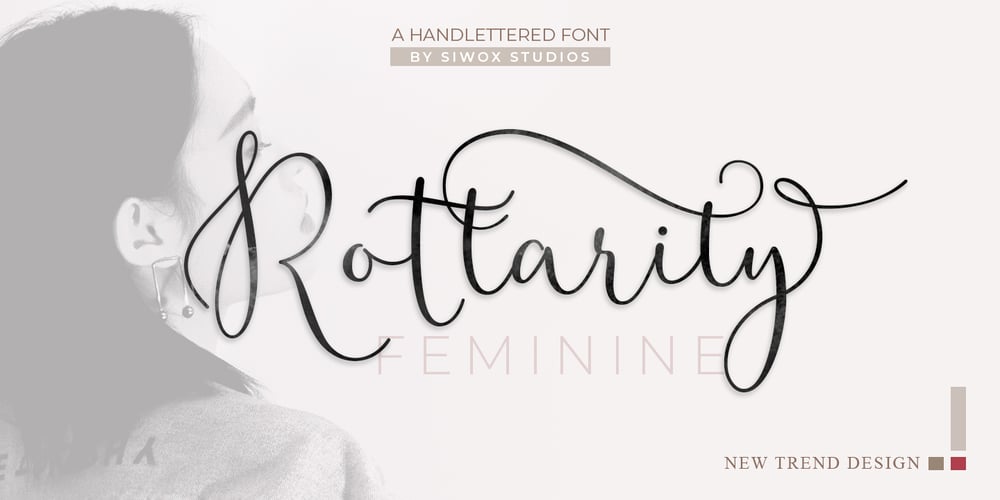
Rottarity Feminine Font Family was designed by Sarwo Edi and published by Siwox Studios. Rottarity Feminine contains 1 styles and family package options. Rottarity Feminine, connecting script, designed to convey modern, elegance and fashionable. It is slender, feminine and friendly. Rottarity Feminine will work perfectly for fashion, e-commerce brands, trend blogs, or any business that wants to appear classy and chic. This font support accent letters of Central Europa, Western (À Â Æ È Ë ã ä æ è…),